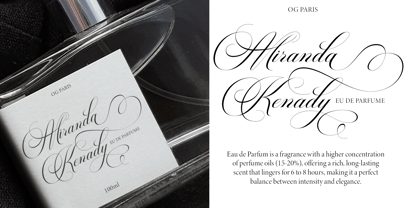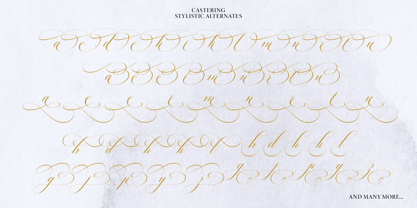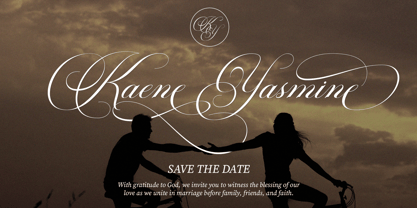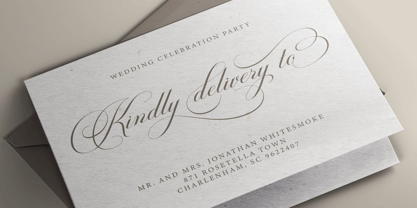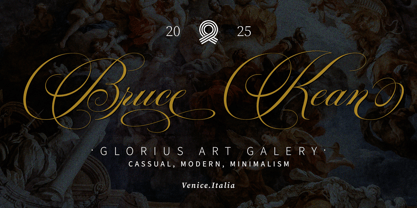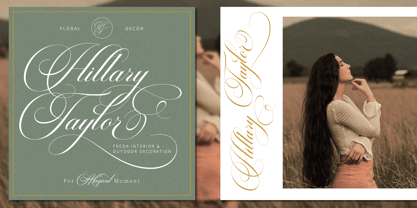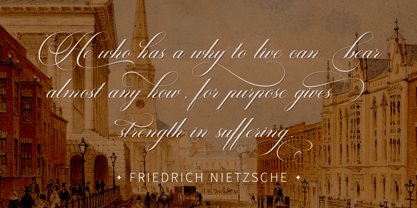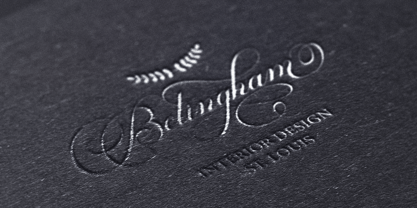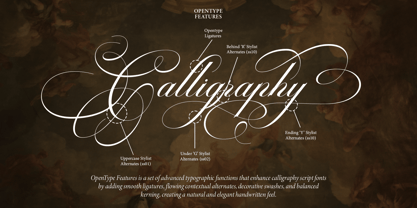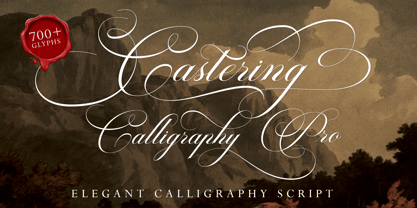
Castering
by Romie Creative
The Castering Font Family was designed by Romi Rahmadi and published by Romie Creative. Castering contains 1 styles. More about this family
Castering calligraphy Pro, Castering calligraphy Pro,is handcrafted with copper plate stylus and features opentype with pua encode, Castering calligraphy Pro, includes alternatives, style sets, ligatures, and swashes, Each glyph lowercase has a stylized styling, Swiss is perfect for branding, invitations wedding and cards or quotes.